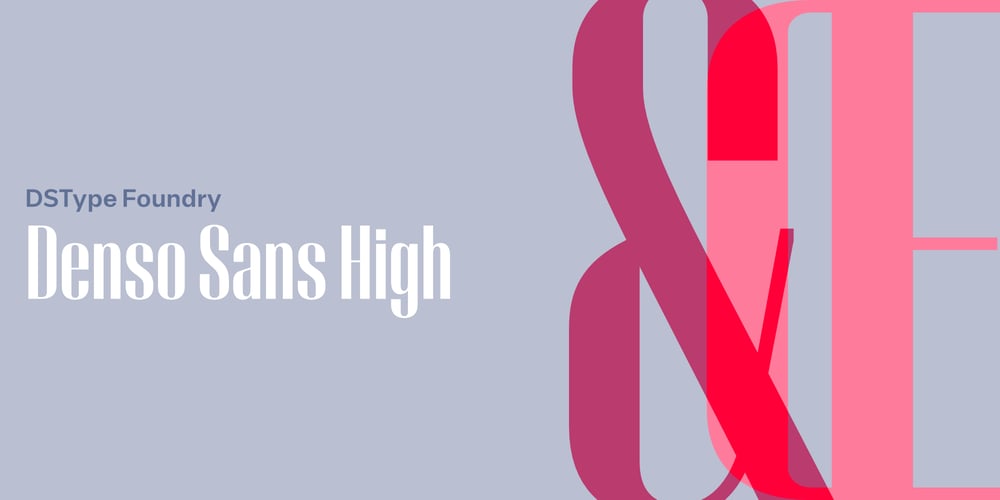
Denso Sans High Font Family was designed by Dino dos Santos, Pedro Leal and published by Monotype. Denso Sans High contains 5 styles and family package options. An eye-catching and practical type family that doesn’t intend to be retro or evoke any geometrical cliché. Ranging from a low contrasted thin to a vigorous black, Denso is available in both low and high contrast versions. All consistently developed across two styles, Serif and Sans. Marked by the vertical rhythm, enhanced by the enormous x-height, Denso has the typographic qualities that will allow the design to be highly readable, with a strong stylish statement.